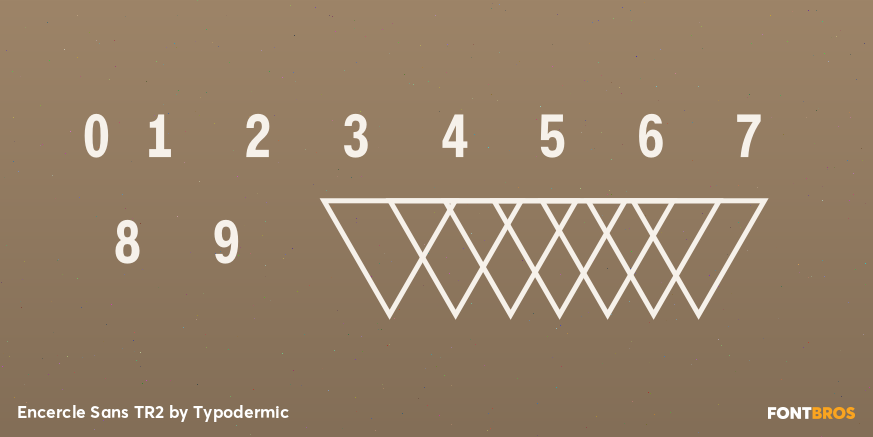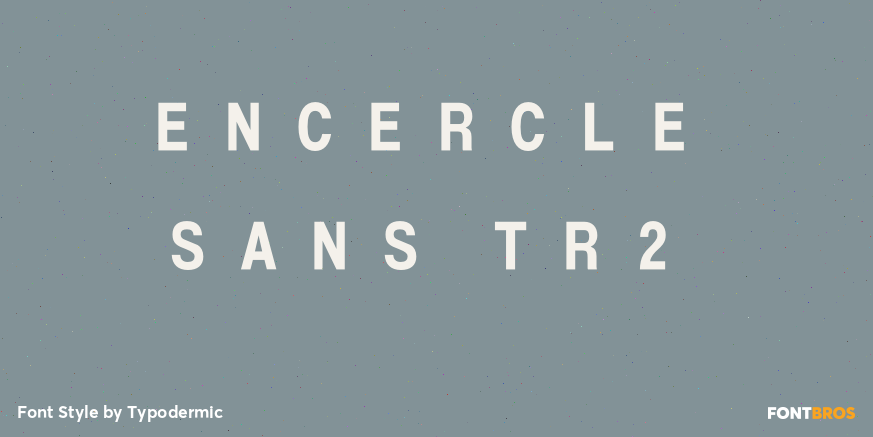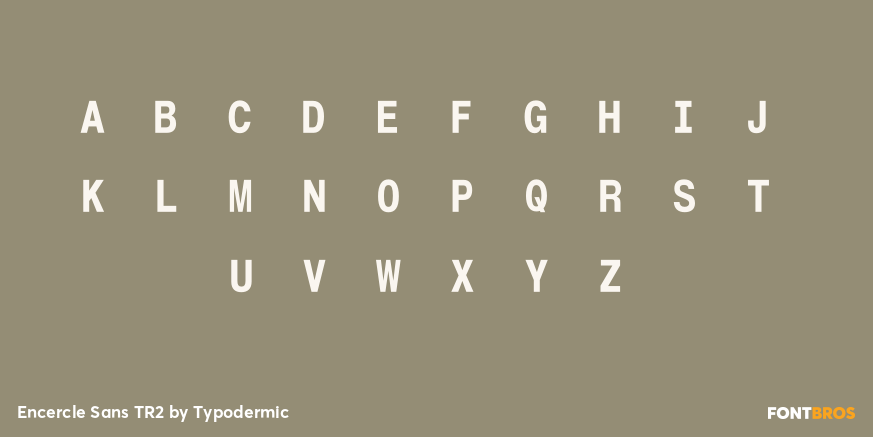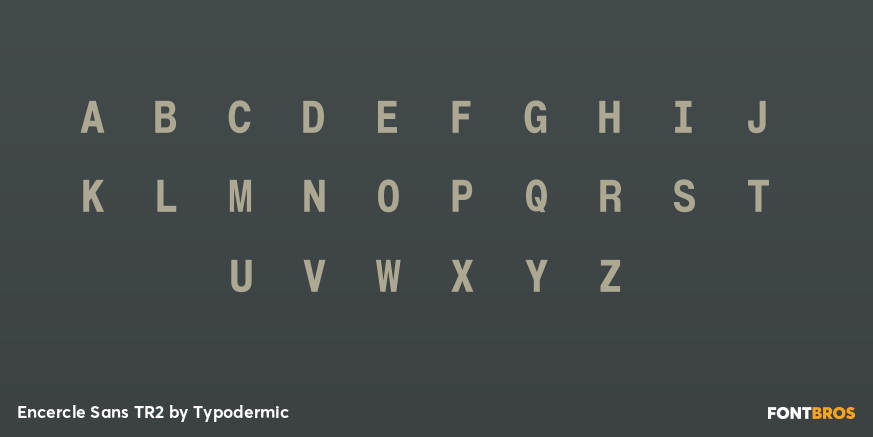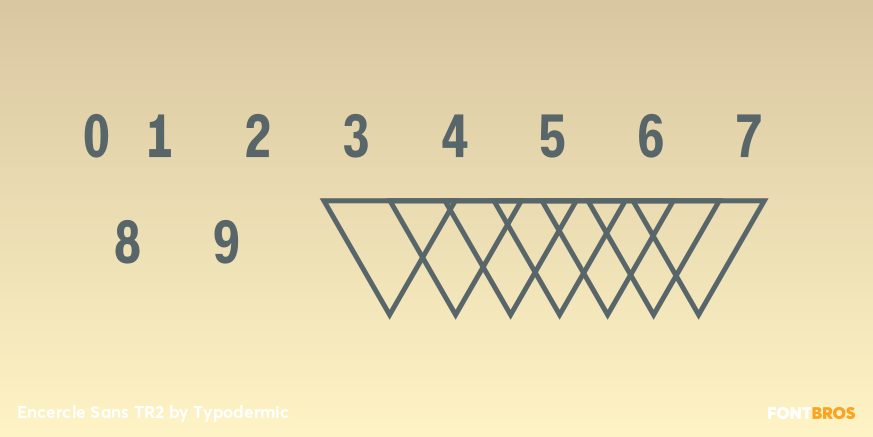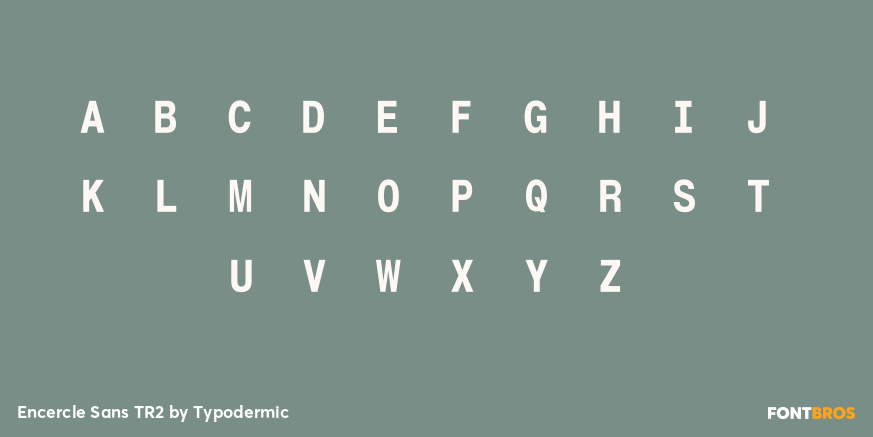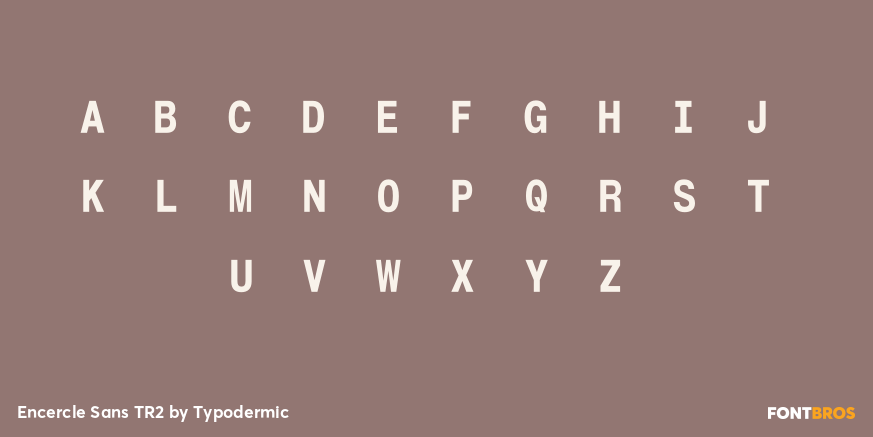
Encercle Sans TR2
Buy NowEncercle Sans TR2 uses a downward-pointing triangular frame for labels that need an immediate descending cue. TR2 Bold supplies the solid inverse triangle with light lettering. Its role is to create a filled directional marker, not merely a heavier outline.
Use TR2 for lower-level parking guidance, basement and underpass routes, stairs-down instructions, and below-deck references in visitor or facility maps. It fits searches for a down-triangle number font, lower-level marker font, or editable descent callout.